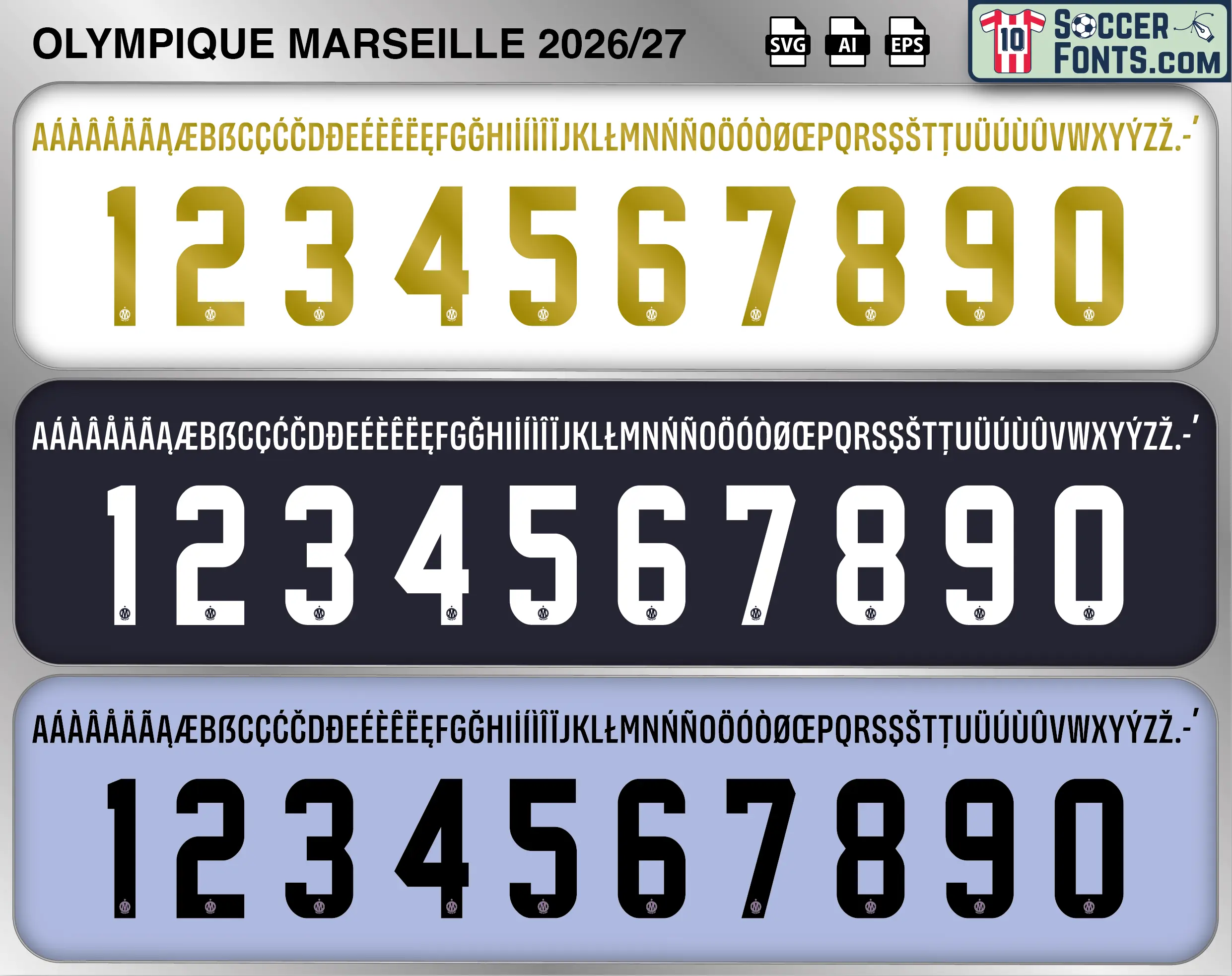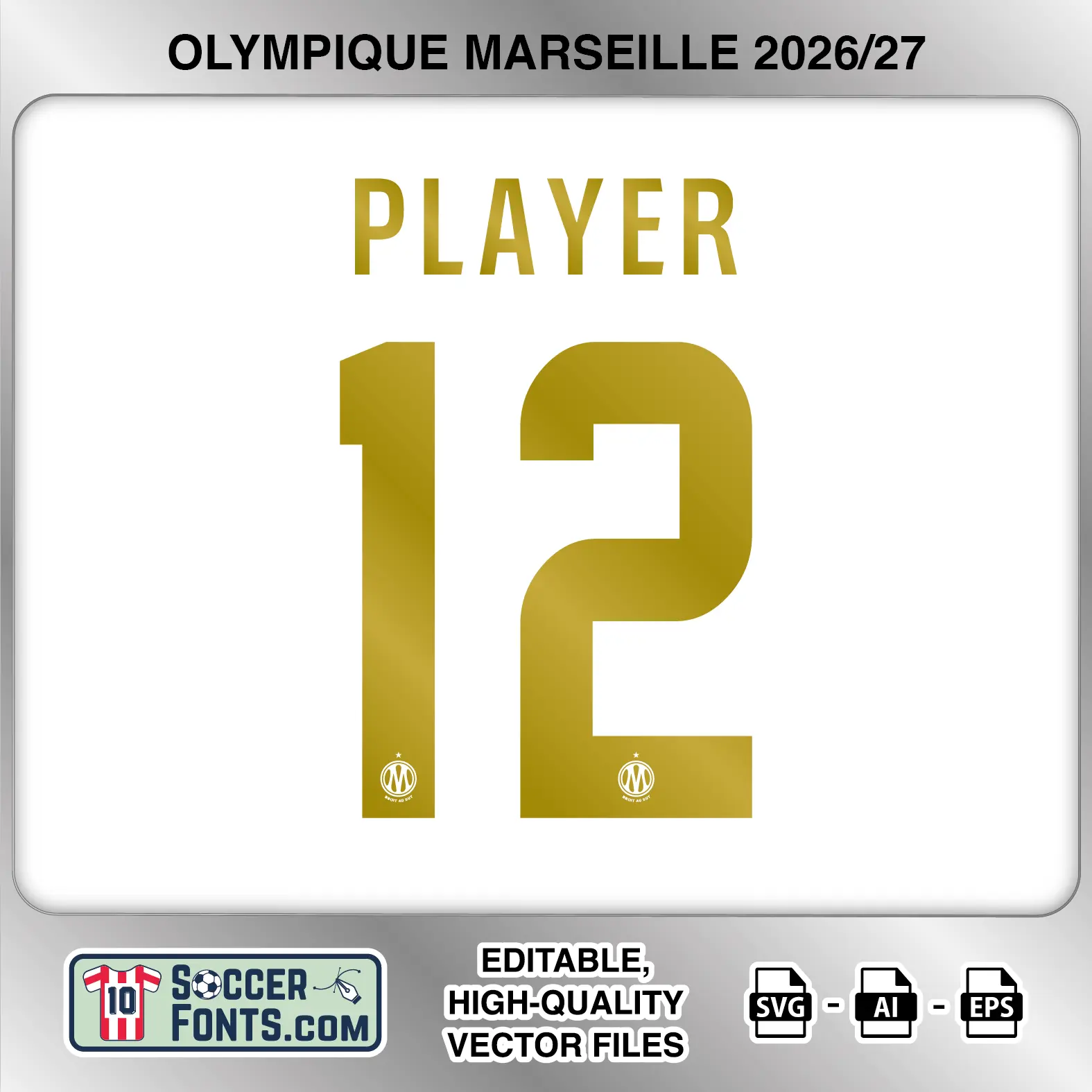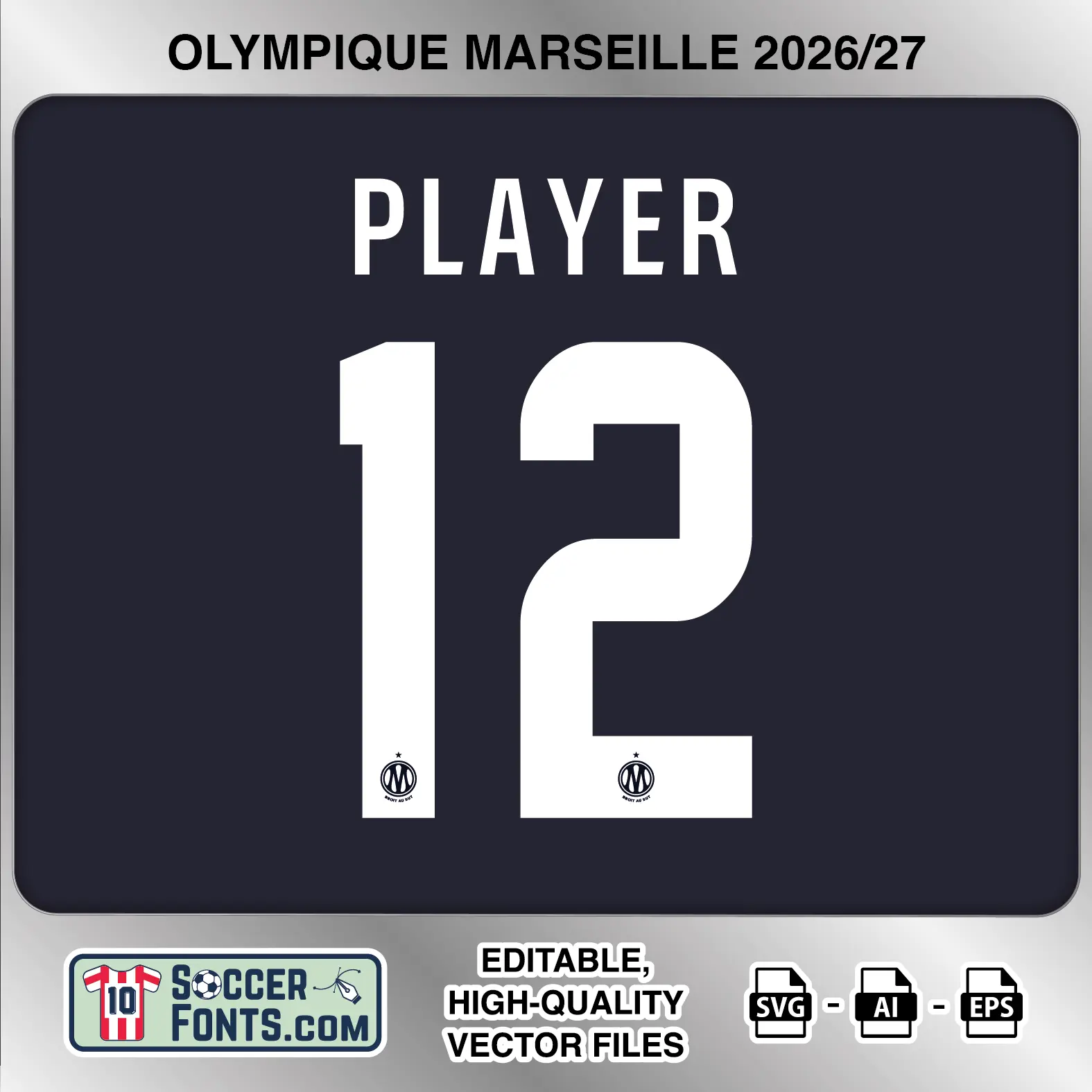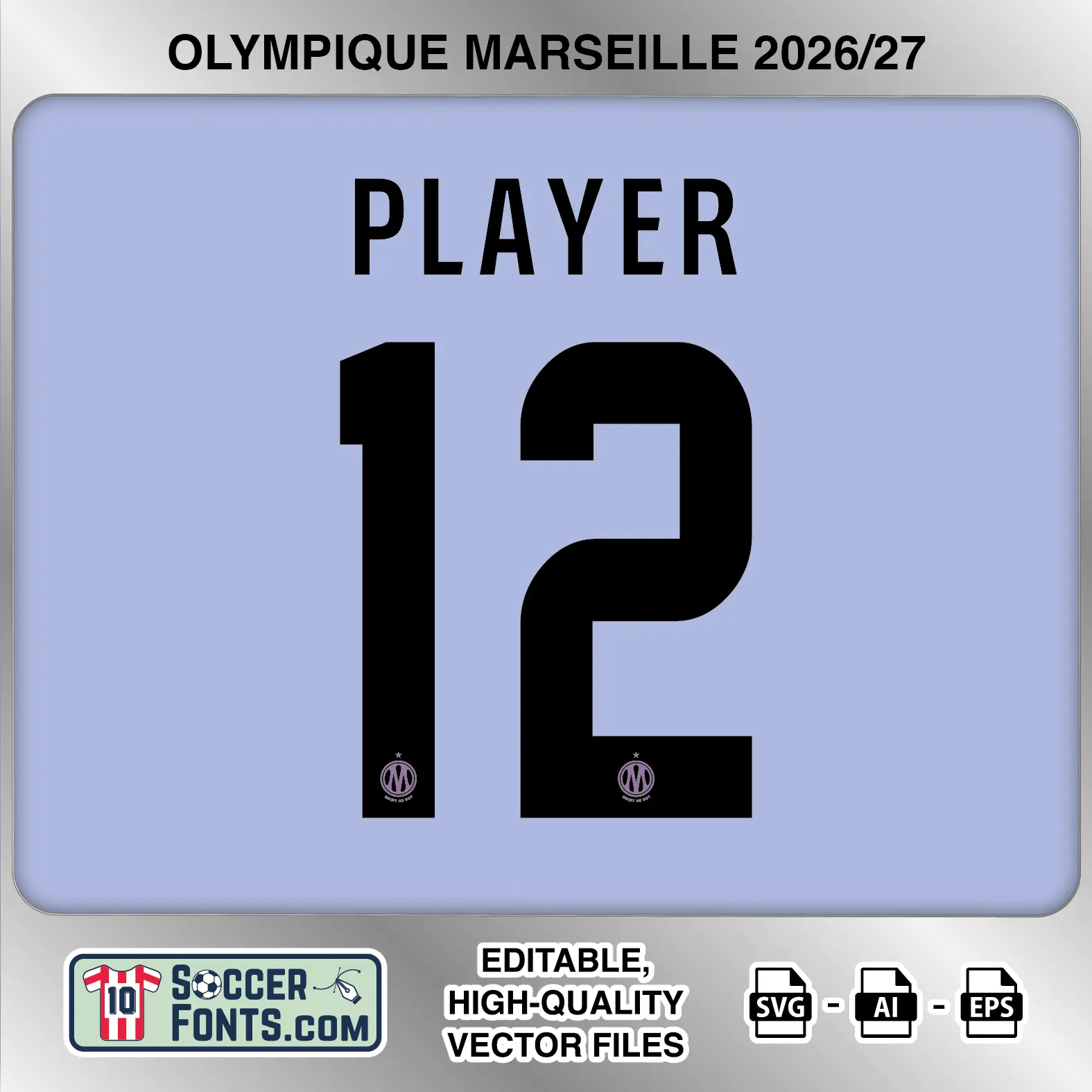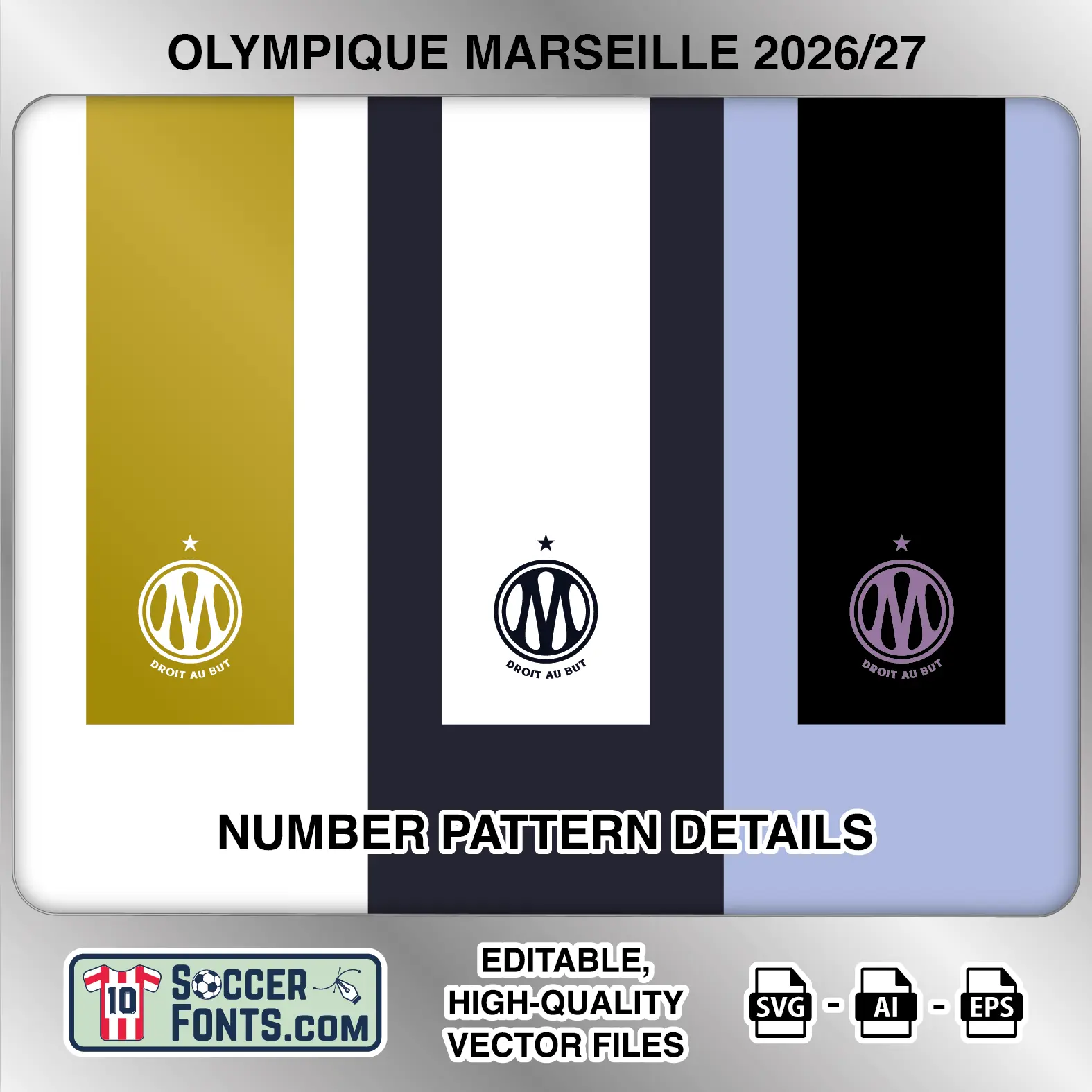
About Olympique Marseille 2026-27 Font
Download Olympique Marseille 2026-27 font, an editable soccer jersey lettering design in vector format inspired by the Olympique Marseille home, away and third kit styles used during the 2026-27 football season. This football font artwork is prepared for football shirt recreations, custom jersey projects, football kit mockups and sports graphic design workflows.
Visual Identity of the Font Design :
The Olympique Marseille 2026-27 lettering combines a tall, condensed uppercase alphabet with large, heavy numbers. The name characters have narrow proportions and clean vertical strokes, while the numerals use broad geometric forms with a mixture of straight edges and rounded corners. The 1 has an angled upper terminal, the 2 combines a rounded upper section with a squared horizontal base, and the 4 uses a distinctive open triangular construction. Figures such as 6, 8, 9 and 0 feature compact rectangular or rounded internal spaces. A small Olympique Marseille crest with the star above it appears near the bottom of every numeral.
The home treatment, shown first in the complete set, uses metallic gold lettering and numbers on a white background, with a small white OM crest positioned at the base of each number. The away treatment uses white names and numbers against a very dark navy background, creating a strong high-contrast appearance with a dark OM crest at the bottom. The third treatment presents black lettering and numbers against a pale blue/lilac background, with a matching muted crest detail. All three versions share the same condensed character structure and include an extended uppercase alphabet with numerous accented characters for international player names.
Context of 2026-27 Season for Olympique Marseille :
Olympique Marseille entered the 2026-27 campaign with another demanding schedule combining Ligue 1 football with UEFA Europa League competition. The Olympique Marseille 2026-27 Font belongs to a season that began at the Stade Vélodrome with a 4-0 league victory over Strasbourg before an early away trip to Monaco.
European football adds another dimension to the campaign, with Marseille competing in the Europa League league phase alongside its domestic commitments. In Ligue 1, major fixtures include Le Classique against Paris Saint-Germain at the Vélodrome in September, as well as important meetings with Monaco, Lyon, Lens and other leading French clubs during the season.
For football shirt collectors and kit design projects, the Olympique Marseille 2026-27 Font brings the home, away and third lettering treatments together in one package. With gold used for the home version, white for the dark away treatment and black for the pale blue third design, the Olympique Marseille 2026-27 Font provides a complete lettering reference for recreating the club’s three main 2026-27 shirt styles.